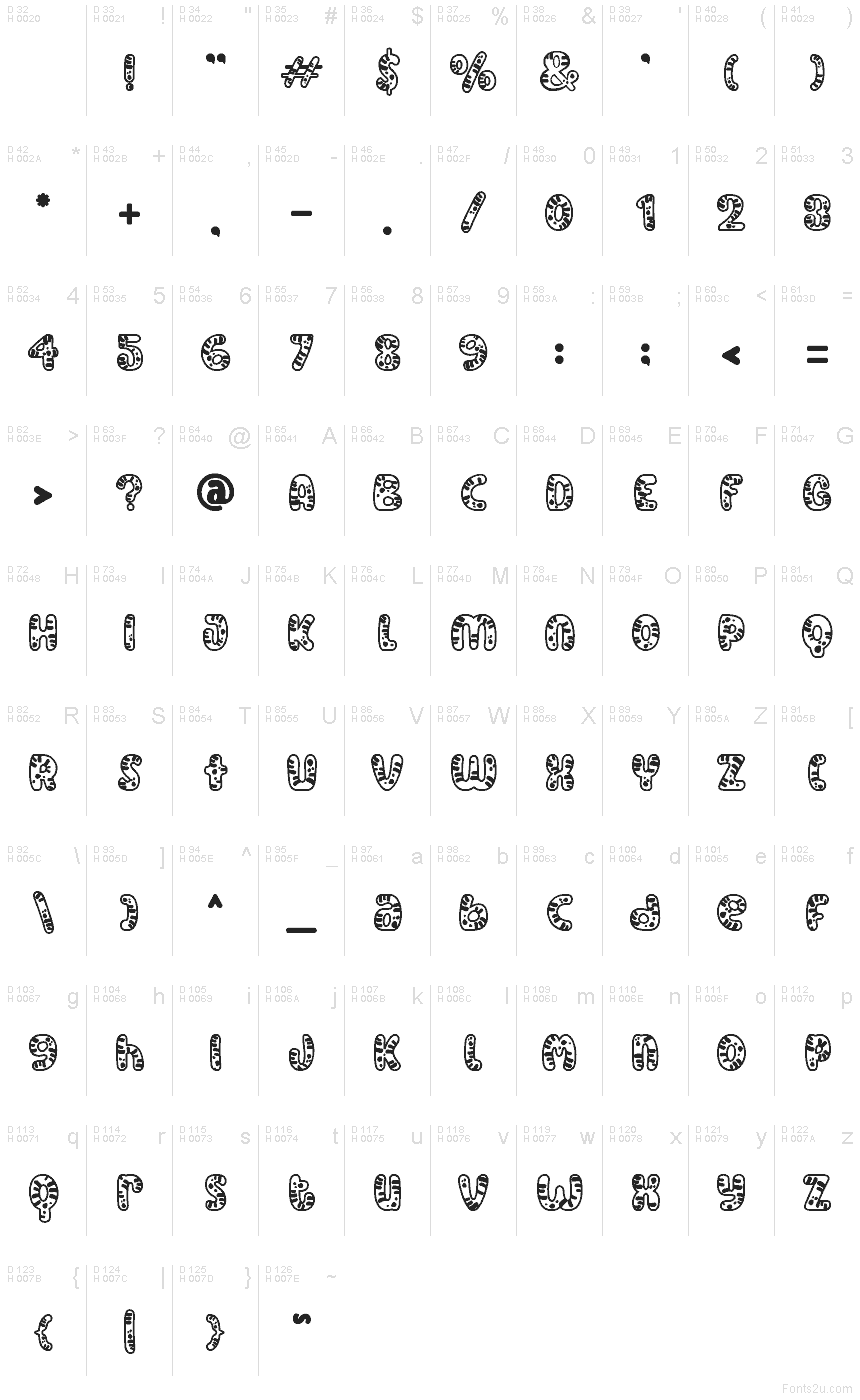
Monster Mash Dino 2
Monster Mash Dino 2 font by PutraCetol Studio is a free decorative display font with a Halloween-inspired theme. Made of organic patterns, its grotesque and whimsical shapes are bold and playful in an avant-garde style that will make everything you write interesting to look at.
Use it for birthday cards, invitations, party posters, banners, brochures, headlines (web or print), logos, visual identity design/branding elements such as signage or other graphic elements. Use it also for quotes and letterings.